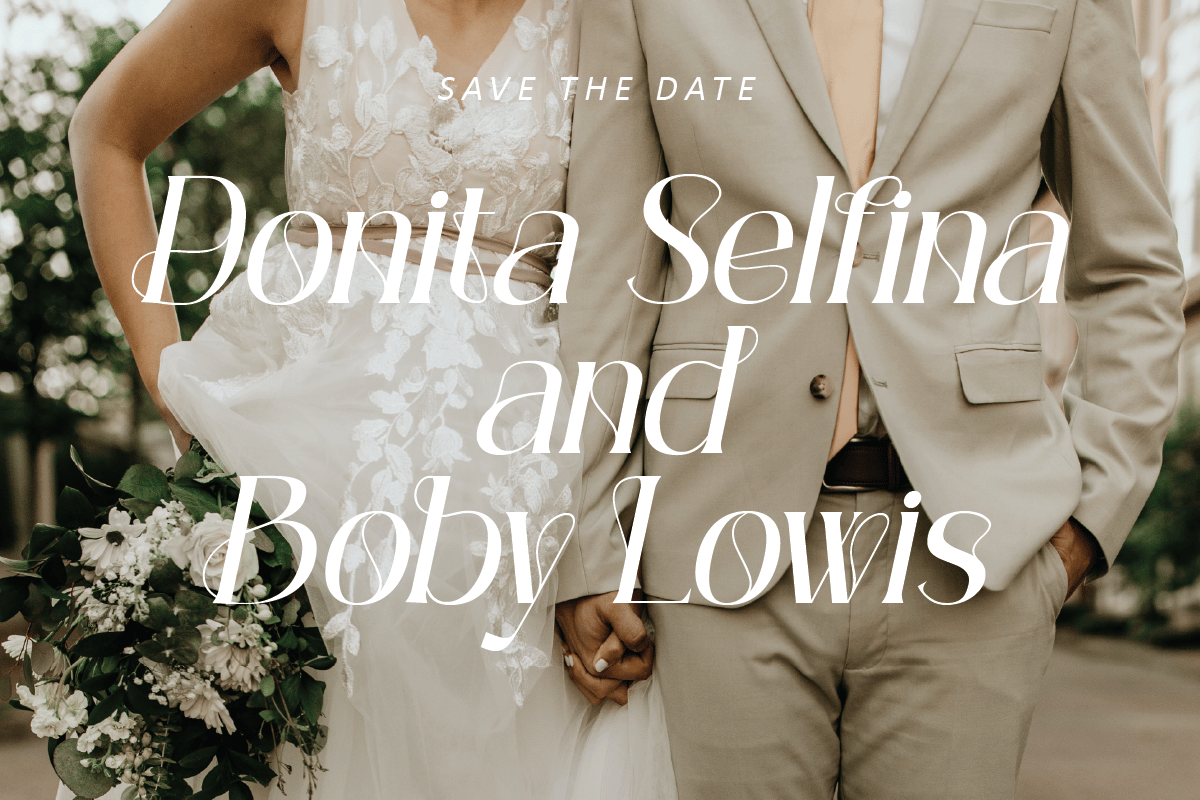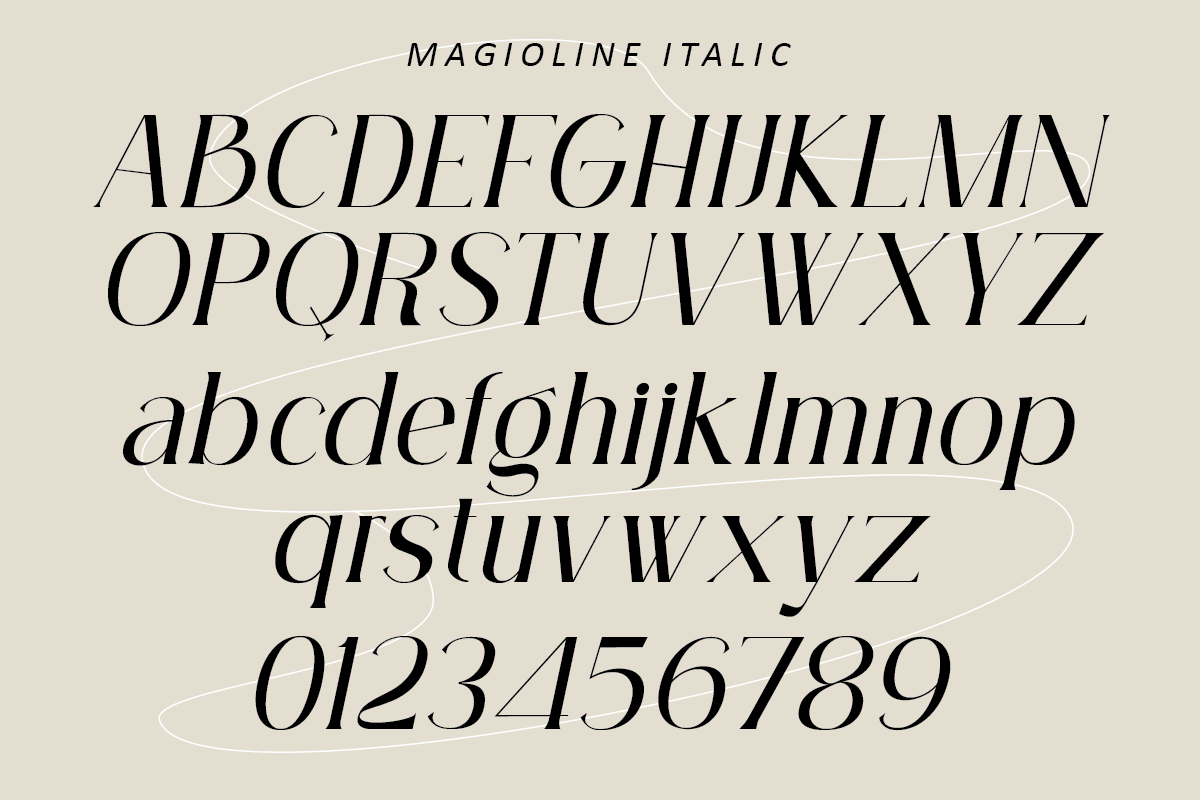
Magioline – Elegant Serif Font
Magioline is a modern serif by Muksal Creative, first released in 2022. It has the strong thick-thin contrast of a Didone, with paper-thin hairlines and heavy vertical stems, plus a few curly alternates and ornaments that soften its formal edge. The family has two styles, Regular and a flowing Italic.
The Italic is the star in the specimens: it sets names on a save-the-date card with an easy, handwritten rhythm while staying a proper serif. The full font supports accented characters for multiple languages and comes in TTF, OTF and WOFF.
Best uses for Magioline
• Wedding invitations and save-the-date cards
• Fashion and clothing brand logos
• Magazine headers and editorial titles
• Product packaging for cosmetics and candles
• Text overlays on photos
Pair Magioline with a clean sans to let its contrast show. Montserrat in Light, spaced out a little, suits small caps lines such as dates and venues. Jost is a good, neutral choice for body text on websites. If you need a serif for paragraphs, EB Garamond is calmer and very readable.
What free font is similar to Magioline?
Try Bodoni Moda or Playfair Display on Google Fonts. Both are free, open-licence high-contrast serifs with proper italics, though without Magioline’s alternates.